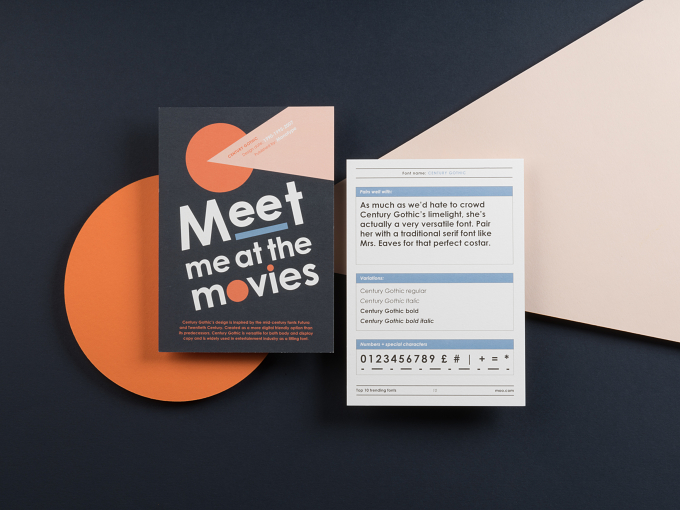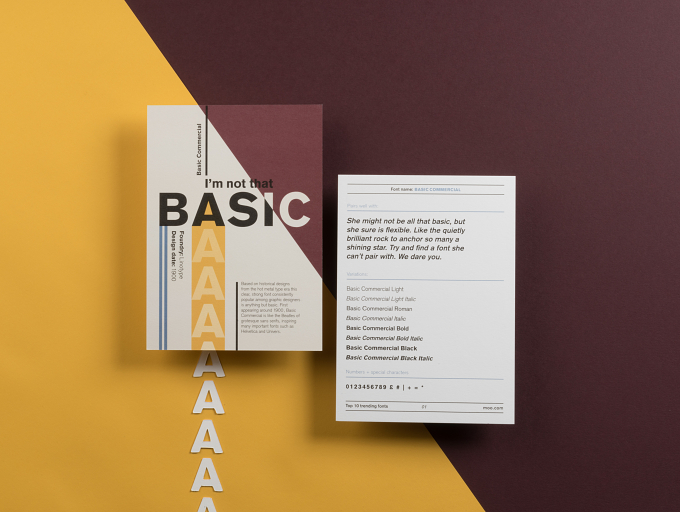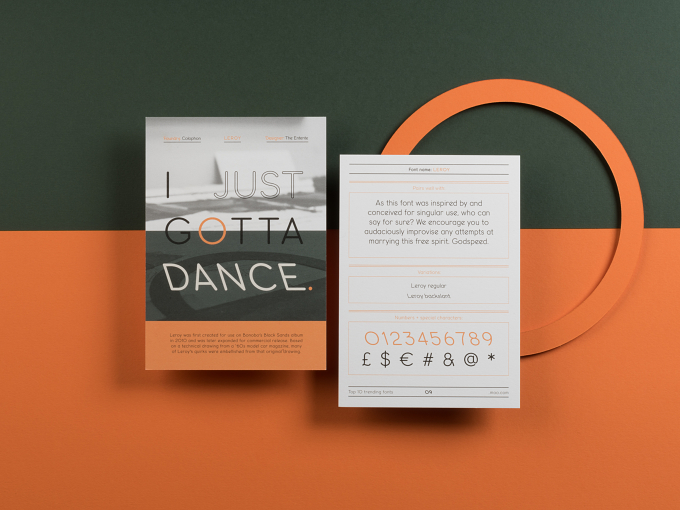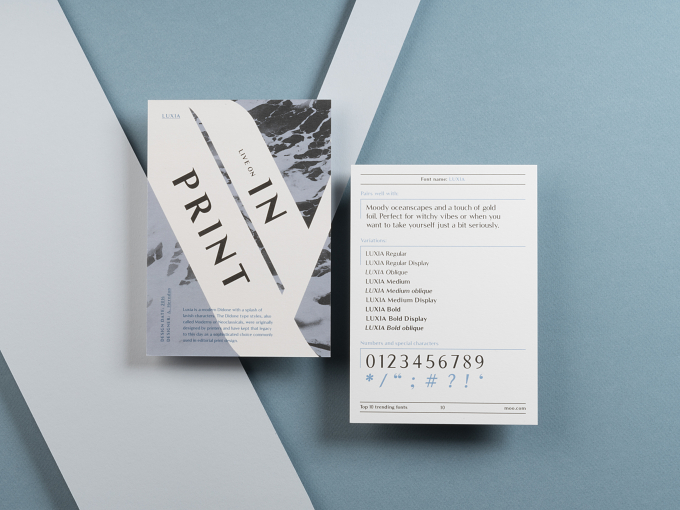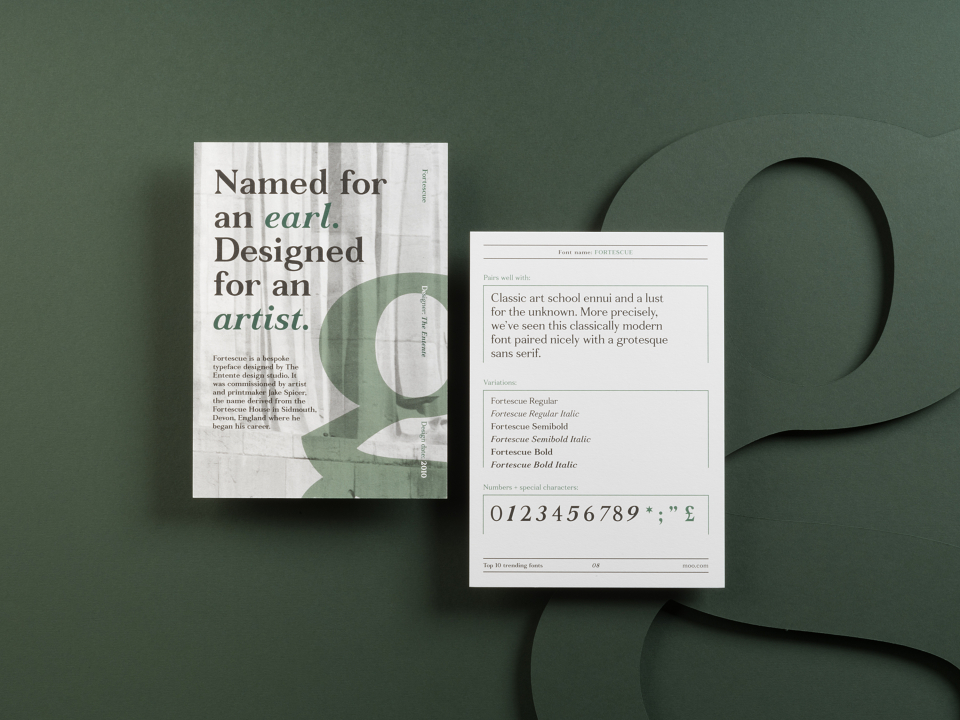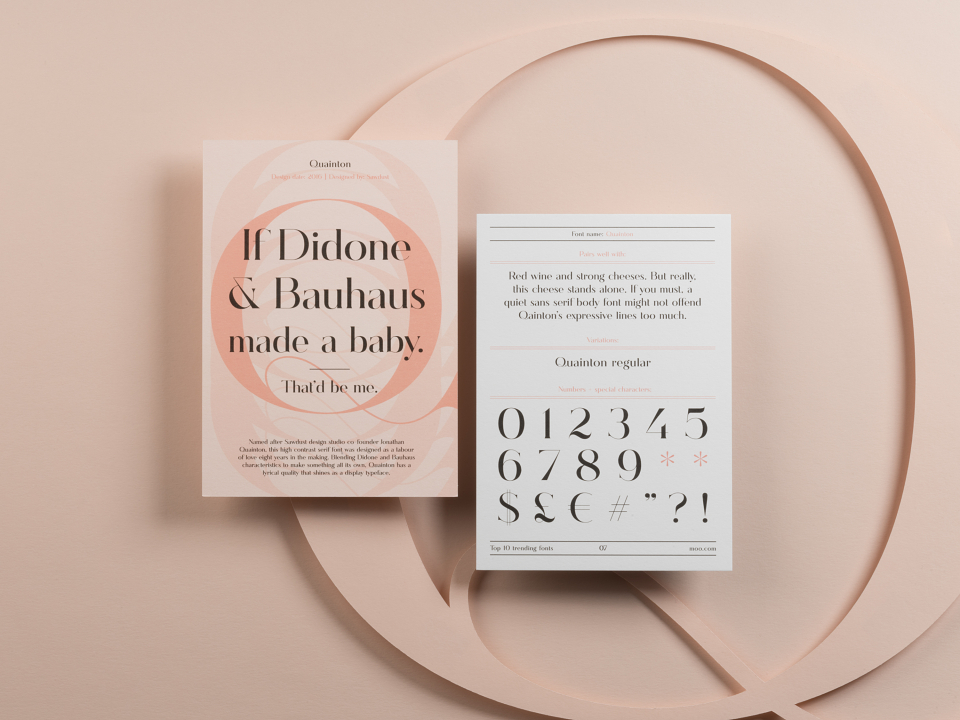
Digital print and design company MOO presents the Fonts of 2018, the results of a survey providing insight into all things typeface related. MOO surveyed 1,300 of their design-savvy customers across the United States to uncover the favorite go-to typeface and what is coming up as new on the scene.
MOO’s Global Creative Director, Brendan Stephens, weighs in on the findings. Here are his key takeaways:
The biggest up and coming trend we're seeing? The importance of simplicity. With the exception of Saturday Script and Quainton, the font choices are quite plain and slightly retro. Not much flourish or fuss. Less is more.
Nexa is very clean and a bit retro (in its lower cases), so it’s not surprising that we see a lot of that today. It feels a bit utilitarian and masculine, both good in the right context. Alternatively, Saturday Script, is a handwritten font that is on-trend at the moment and feels casual and approachable and feminine. It’s a great commercial font.
Helvetica has gotten a bad rap over the years but still reigns supreme, coming in at #2 among our customers’ “go-to” fonts. Classic, simple and when used properly, enhances without distracting – truly the LBD of fonts.
Up and Coming:
Basic Commercial
Nexa
Saturday Script
Basis Grotesque
Freight Sans
Alcubierre
Quainton
Fortescue
Leroy
Luxia
Go-to:
Avenir
Helvetica
Avant Garde
Proxima Nova
Futura
Garamond Pro
Brandon Grotesque
Gill Sans
Sackers Gothic
Georgia